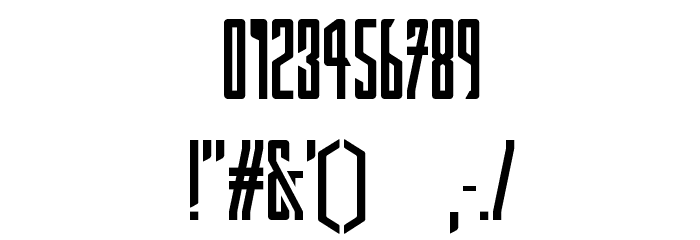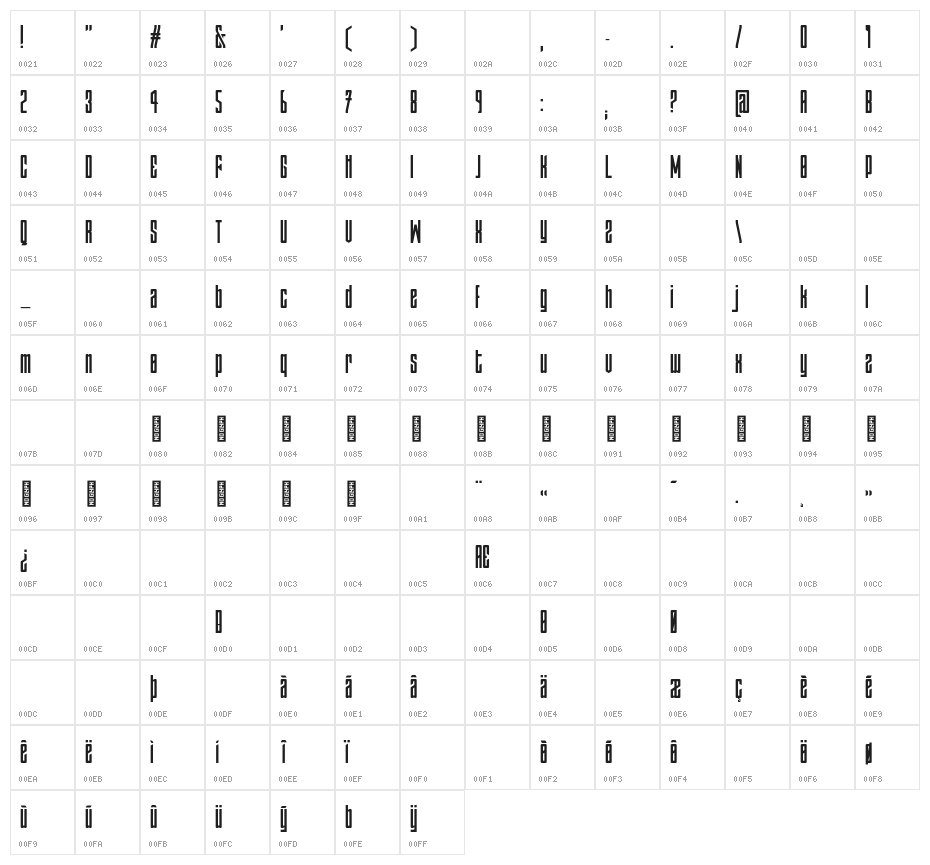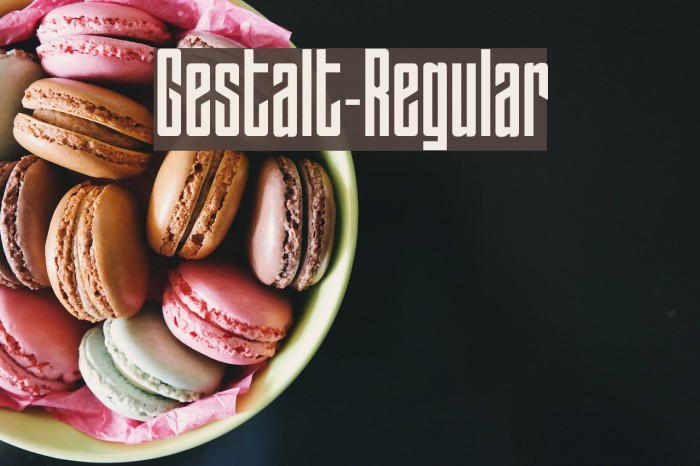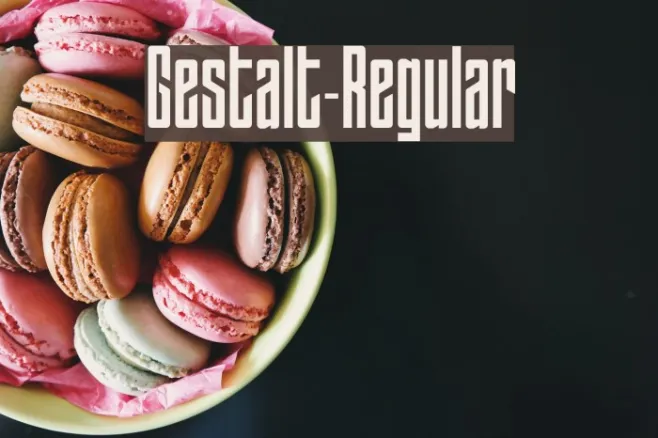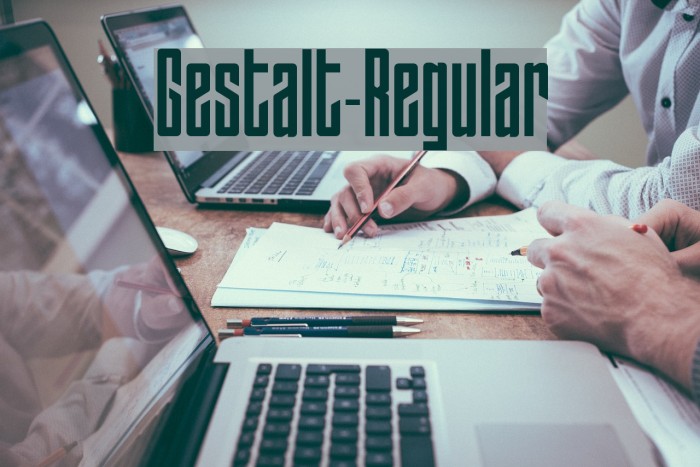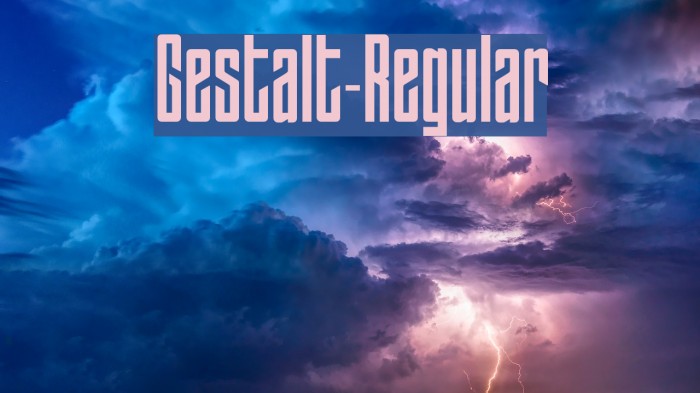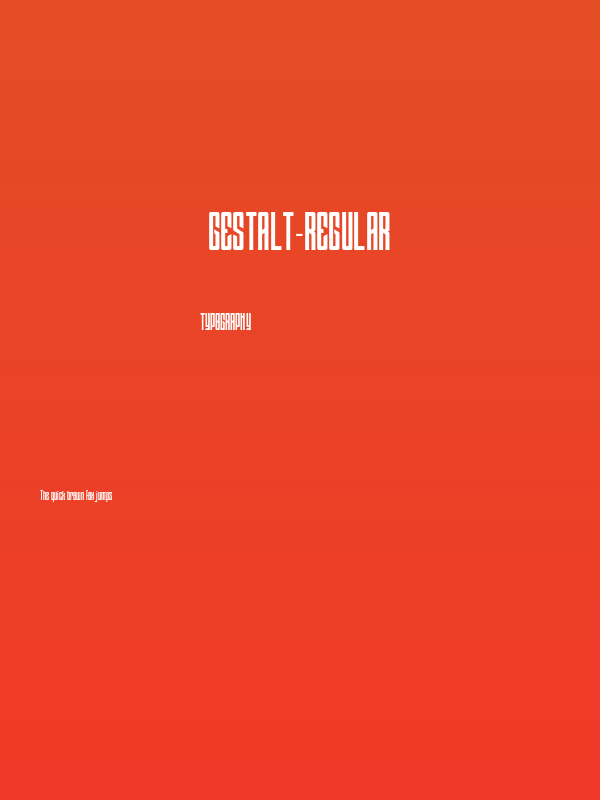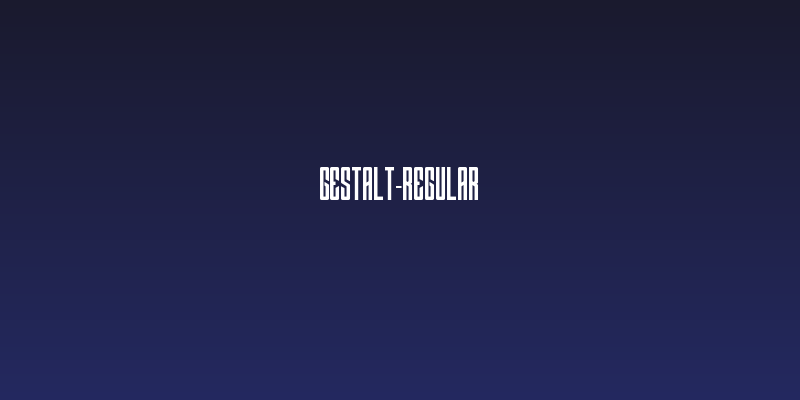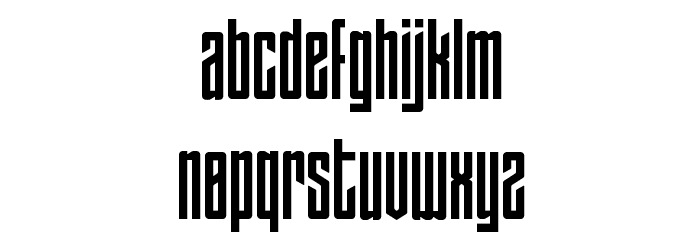
Gestalt-Regular Font
Gestalt-Regular Description
This font features a bold and striking design with a modern, geometric aesthetic. The characters are tall and narrow, with sharp angles and clean lines that create a sense of precision and structure. The uppercase and lowercase letters maintain a consistent height, enhancing the uniformity and balance of the typeface. The numbers and special characters are designed to match the overall style, ensuring a cohesive look across all elements. The font's unique style makes it suitable for projects that require a contemporary and impactful visual presence.
| Proposed Projects | Ideal for branding, posters, headlines, and modern digital designs. |